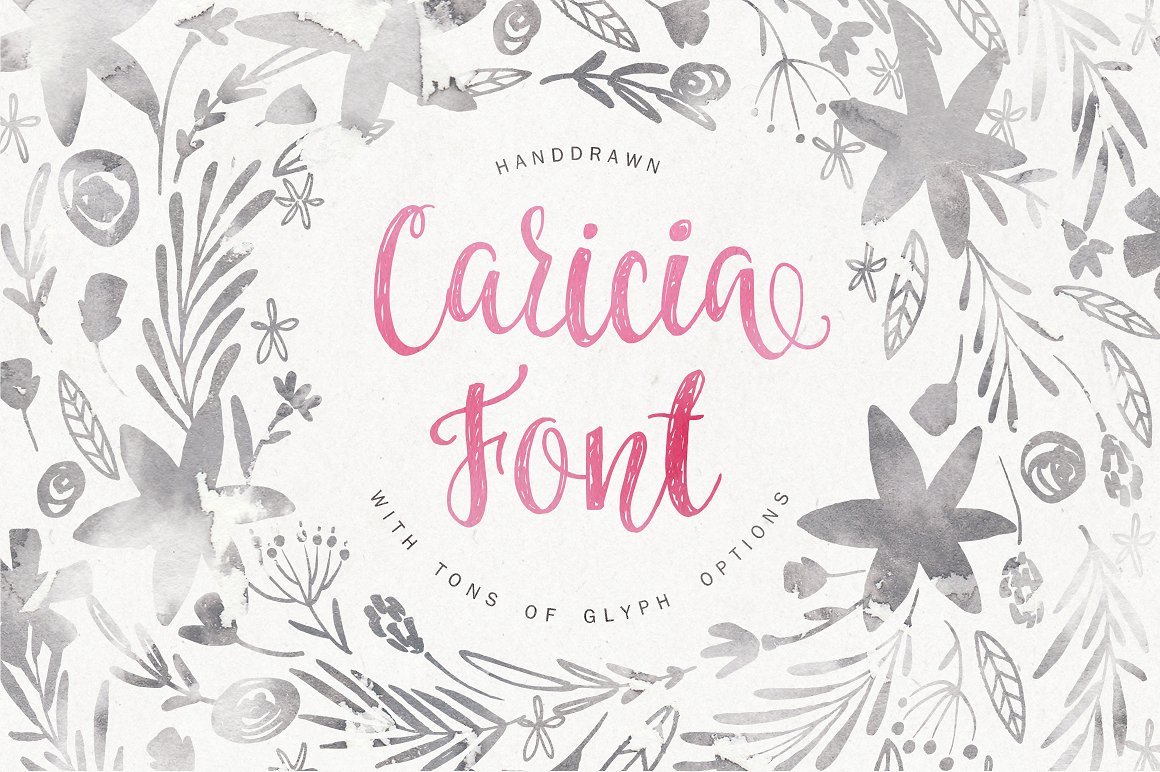
Caricia Handdrawn Font
Caricia is a gentle, very feminine font that has all you need to create stunning logo designs, packaging and invitations. Caricia comes with full set of lowercase alternates, as well as some initial & terminal letters (check previews to see all glyphs).